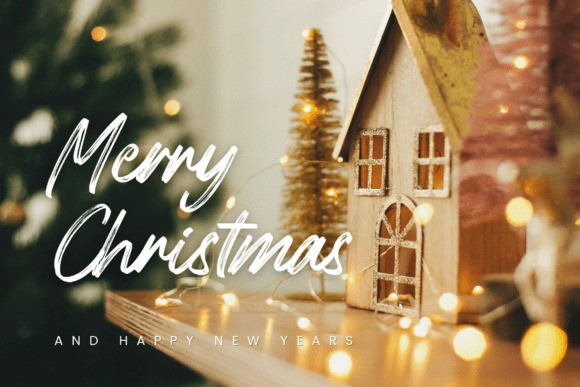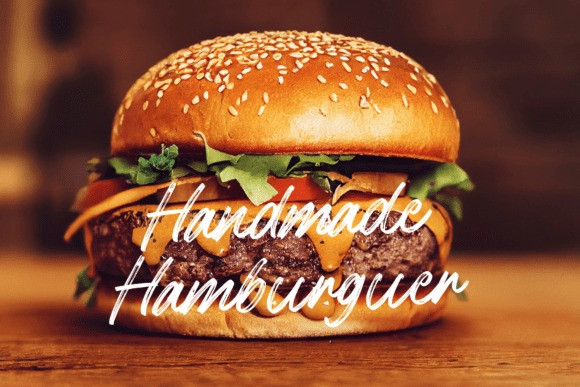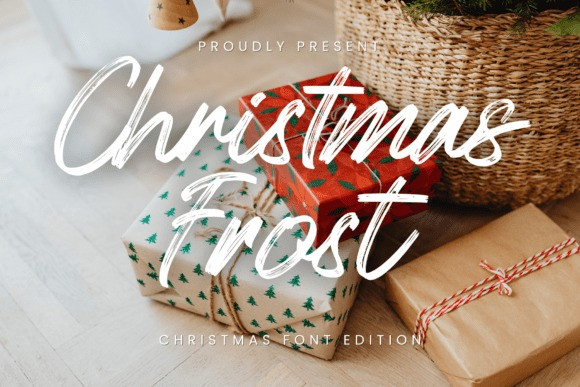
Christmas Frost Font
Christmas Frost Font a natural handwritten brush font that captures the warmth of love and the magic of Christmas time.Each stroke feels organic and lively, as if written with a real brush dipped in snow and joy. Perfect for Christmas cards branding and logo design, holiday quotes and lettering art, social media posts, gift tags, packaging, and more.